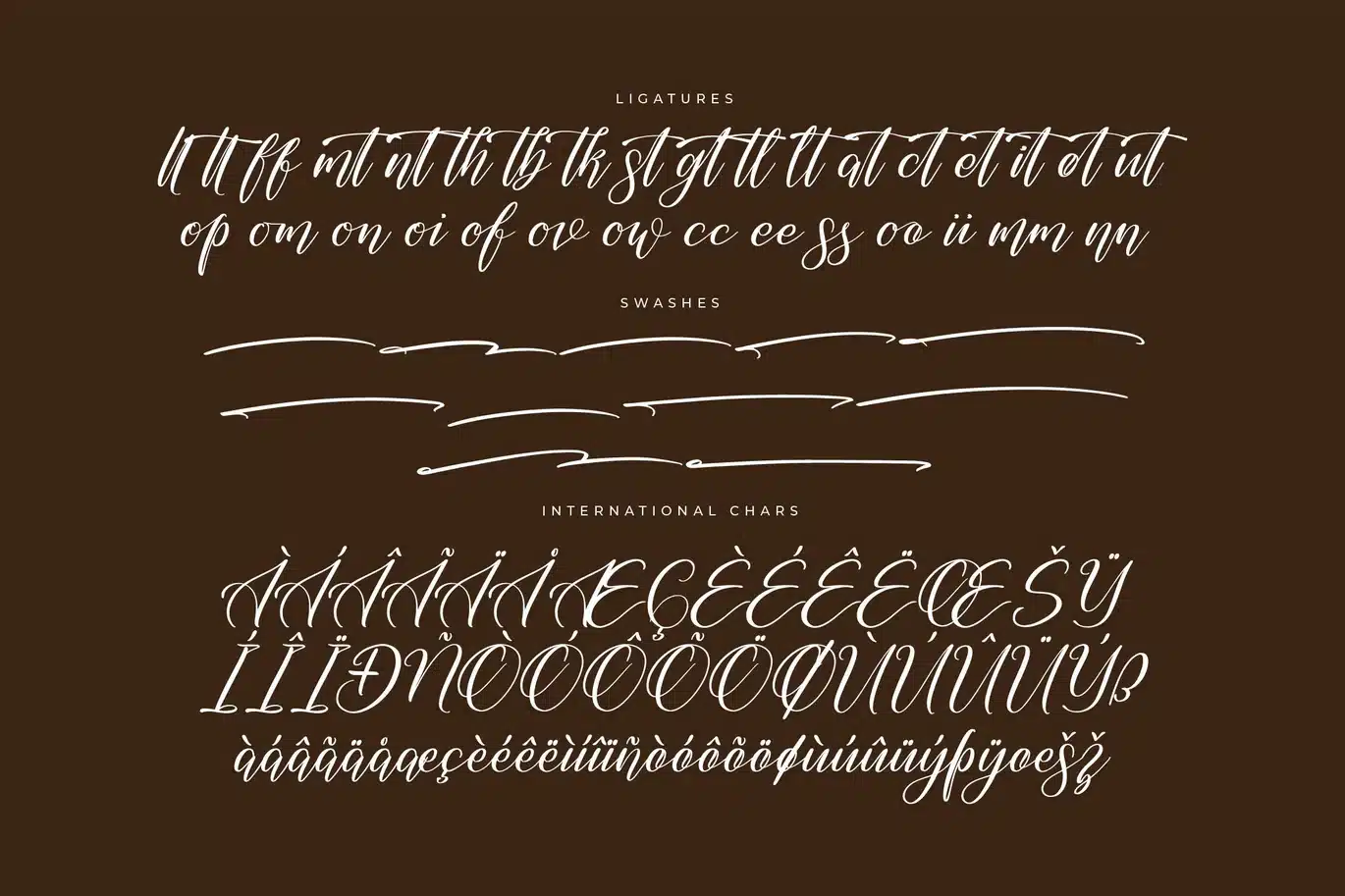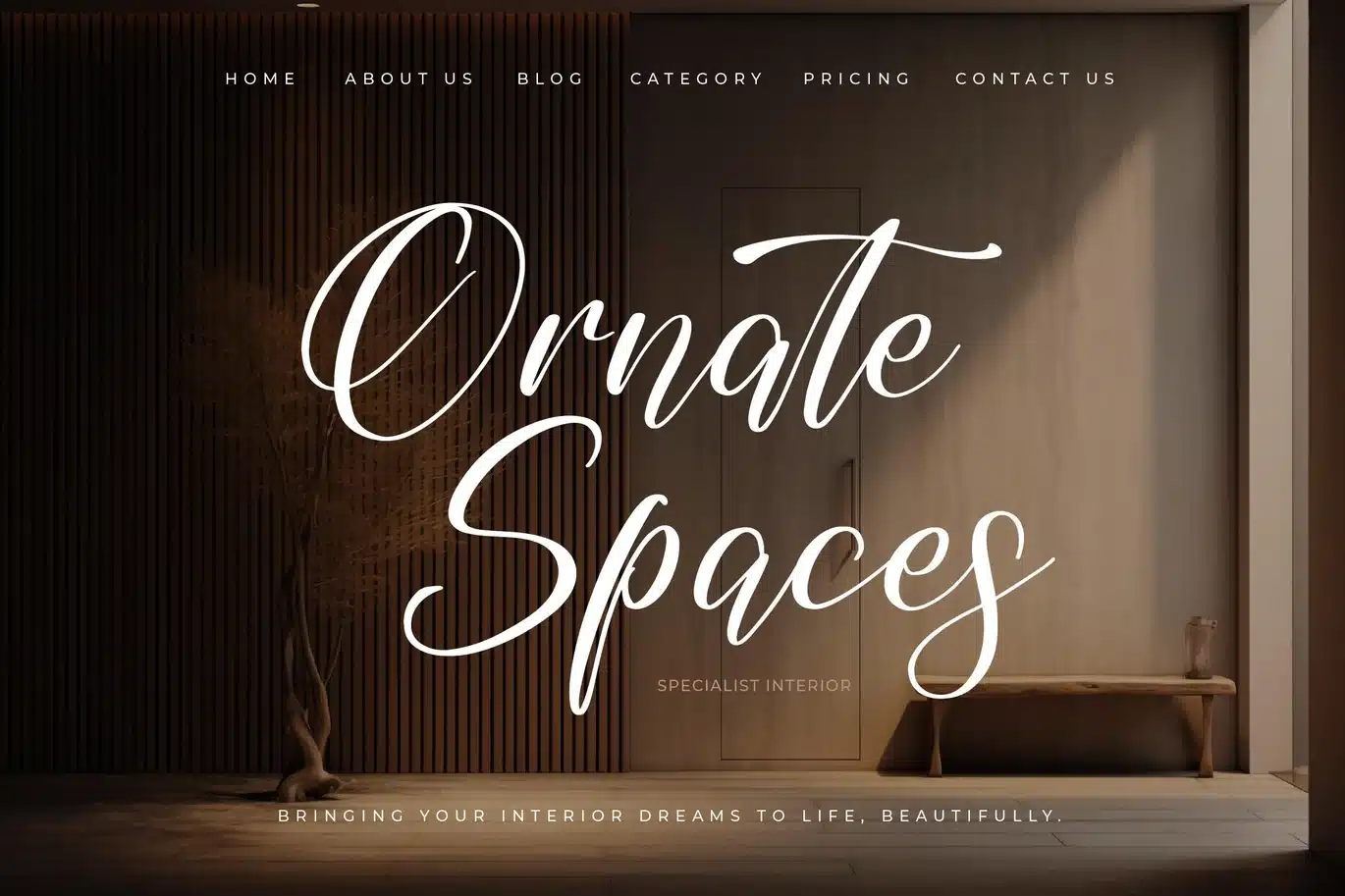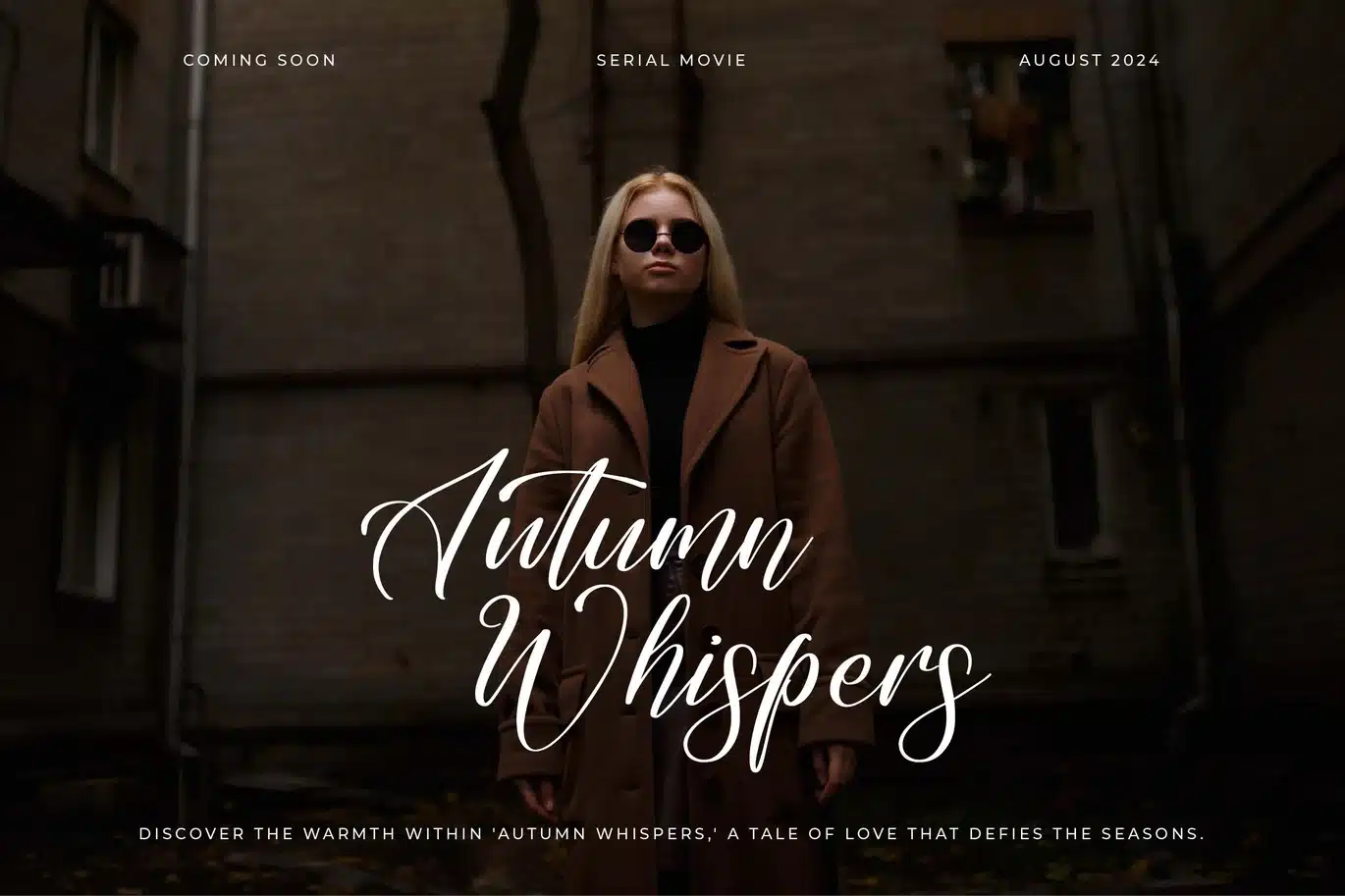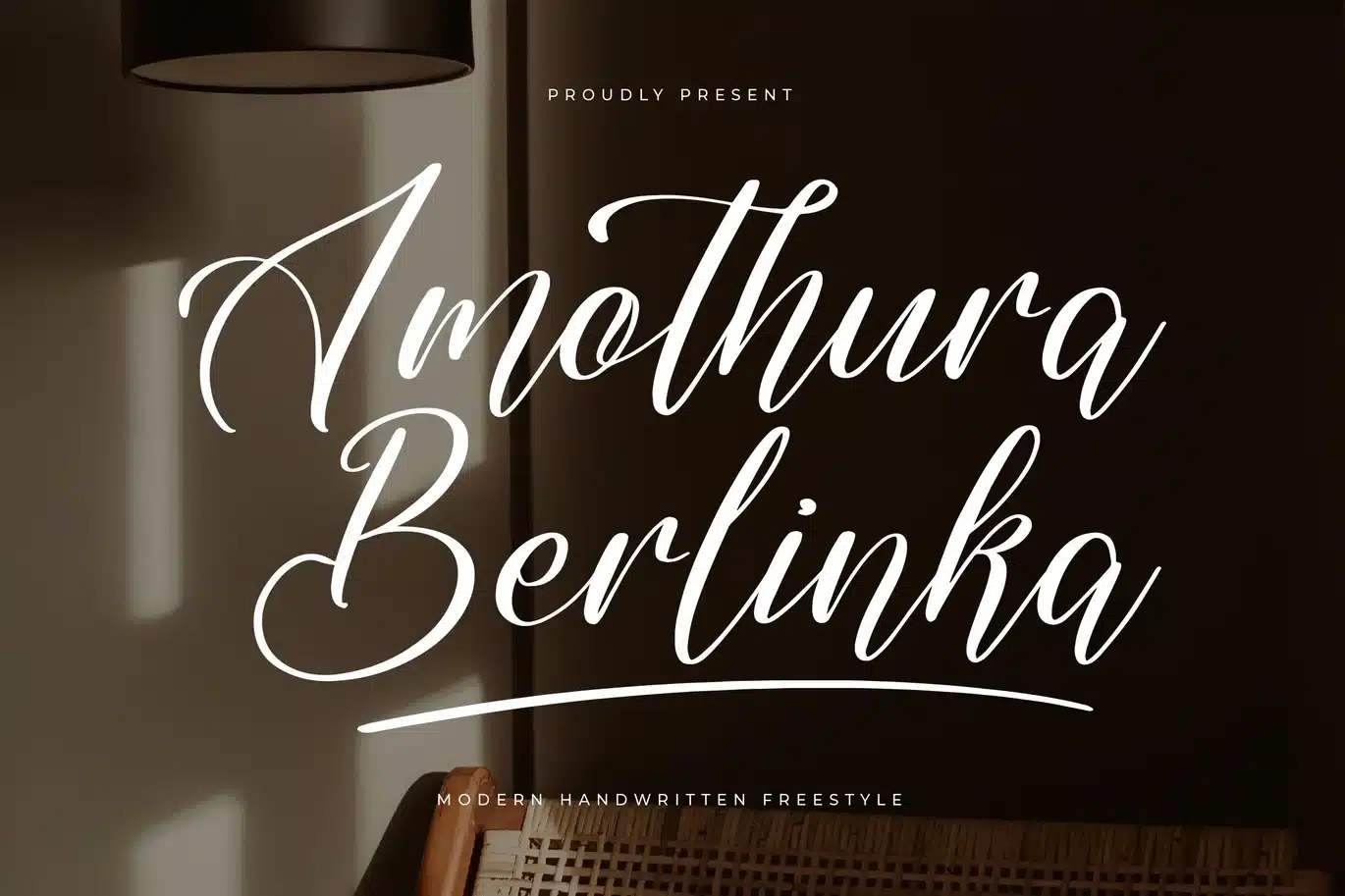
Amothura Berlinka Modern Handwritten Freestyle Font
Hi ladies & gentlemen, this is one of our fonts suitable to complement your digital and printed creative products. This font is perfect for posters, social media posts, branding, personal projects, etc.